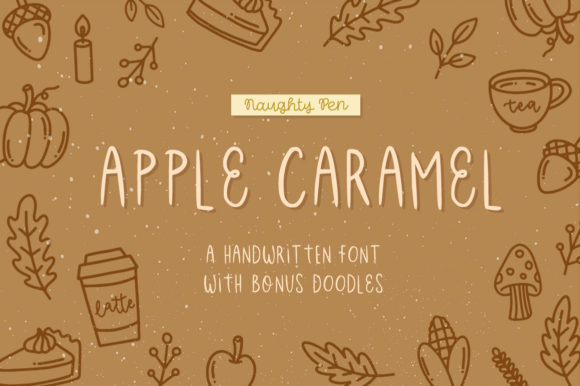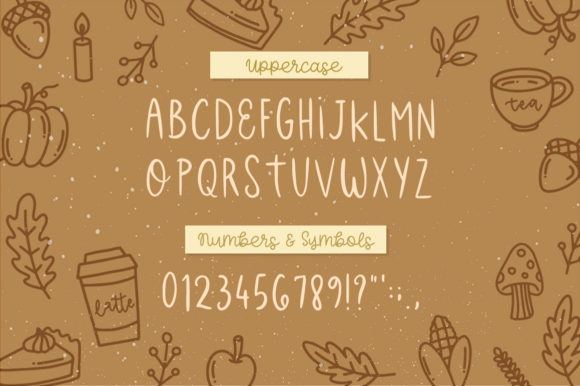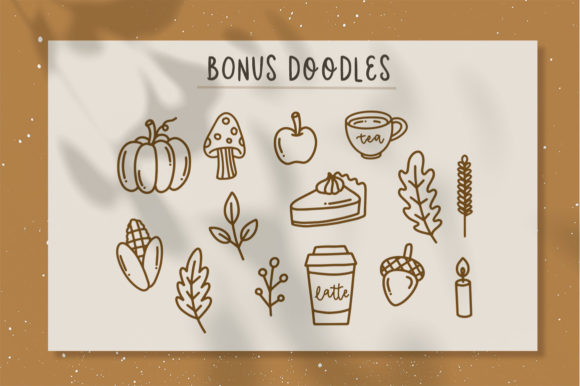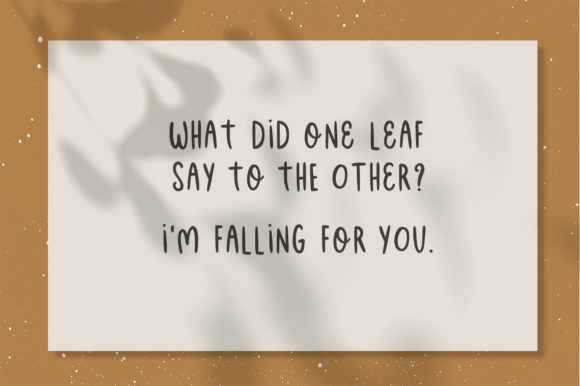
Apple Caramel Font
About Apple Caramel Font
Apple Caramel is a simple and flowing handwritten font. This adaptable font will look great on a variety of design ideas. It will add a fun and friendly touch to each of your projects!